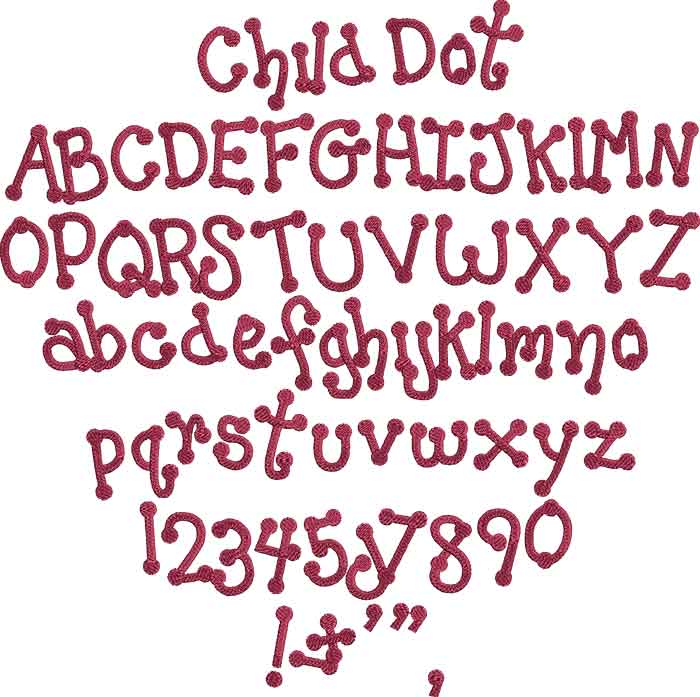
BX Embroidery Font: Child Dot
BX Embroidery Font: Child Dot Font Bundle (6 sizes) is a fun, casual, hand written staggered machine embroidery font that includes A-Z, a-z, 0-9 and punctuation; 6 sizes.
BX embroidery font:
Child Dot is a fun, casual, handwritten staggered machine embroidery font that includes A-Z, a-z, 0-9 and the following punctuation: !?,-+”‘. (70 total characters).